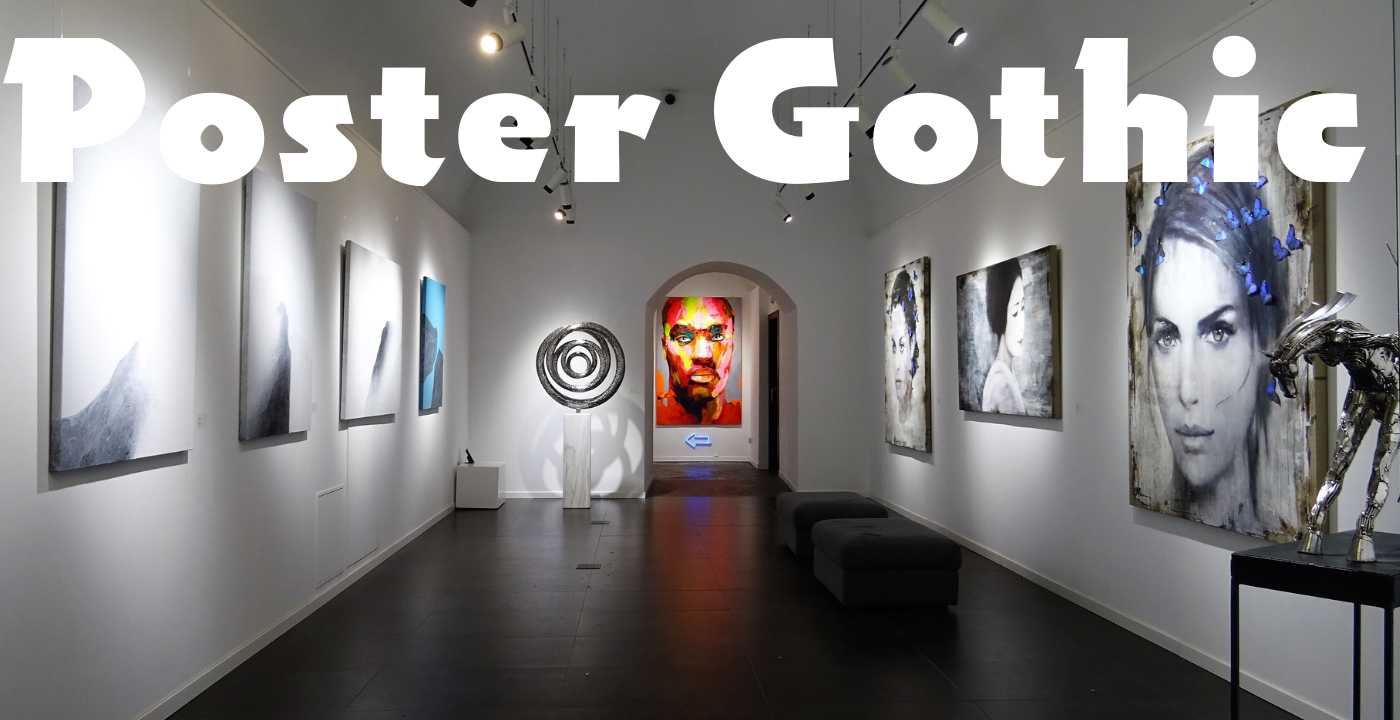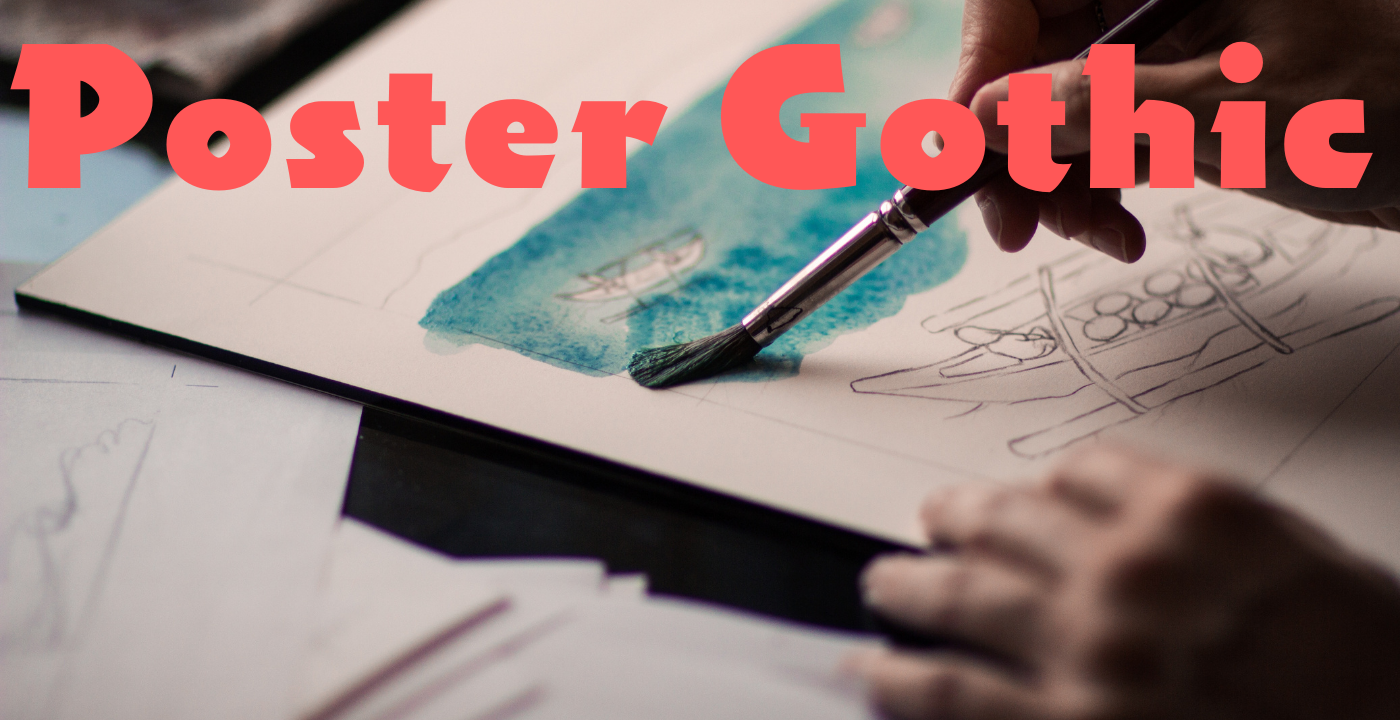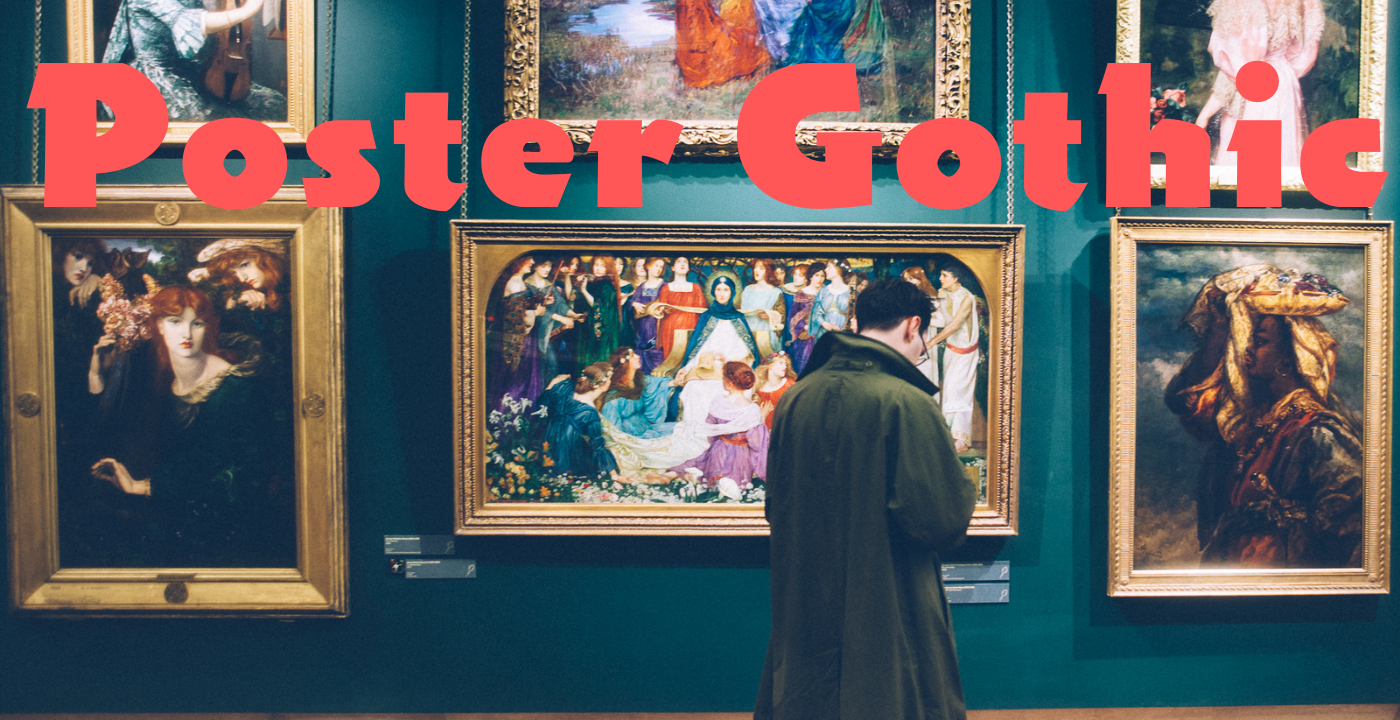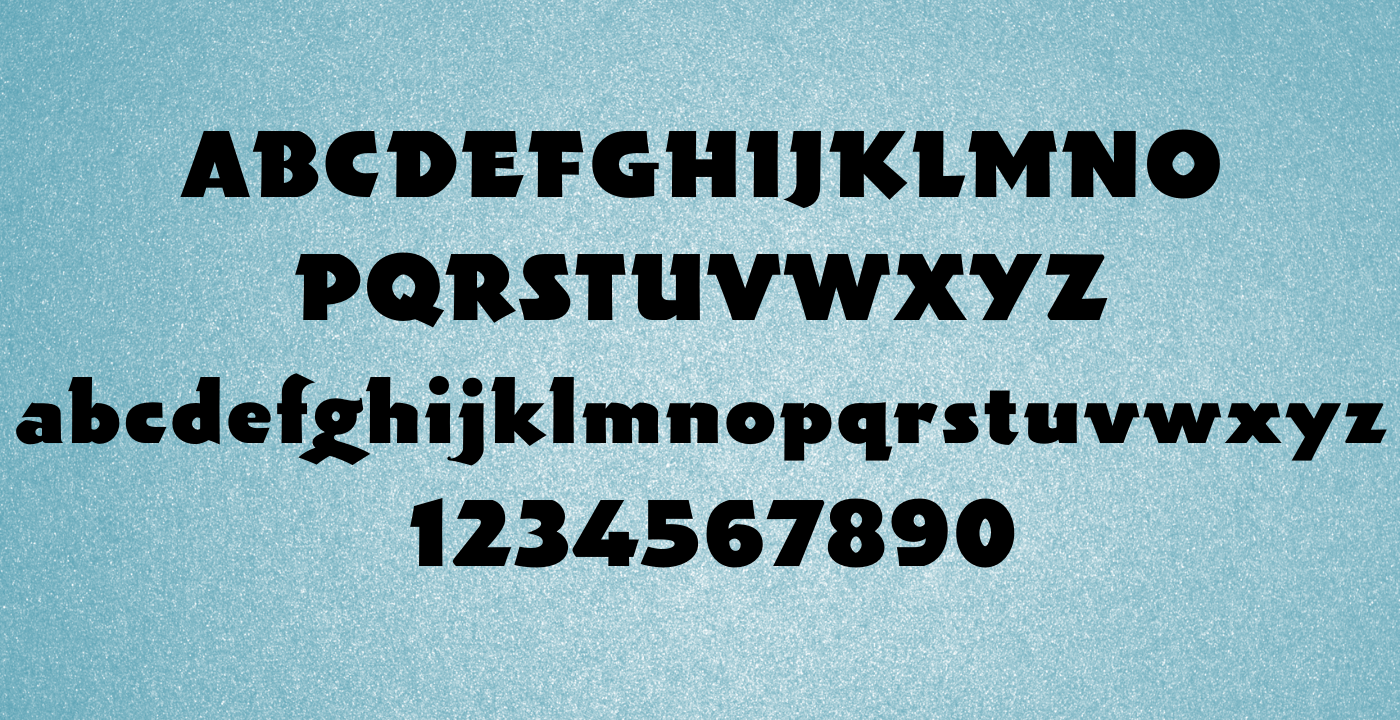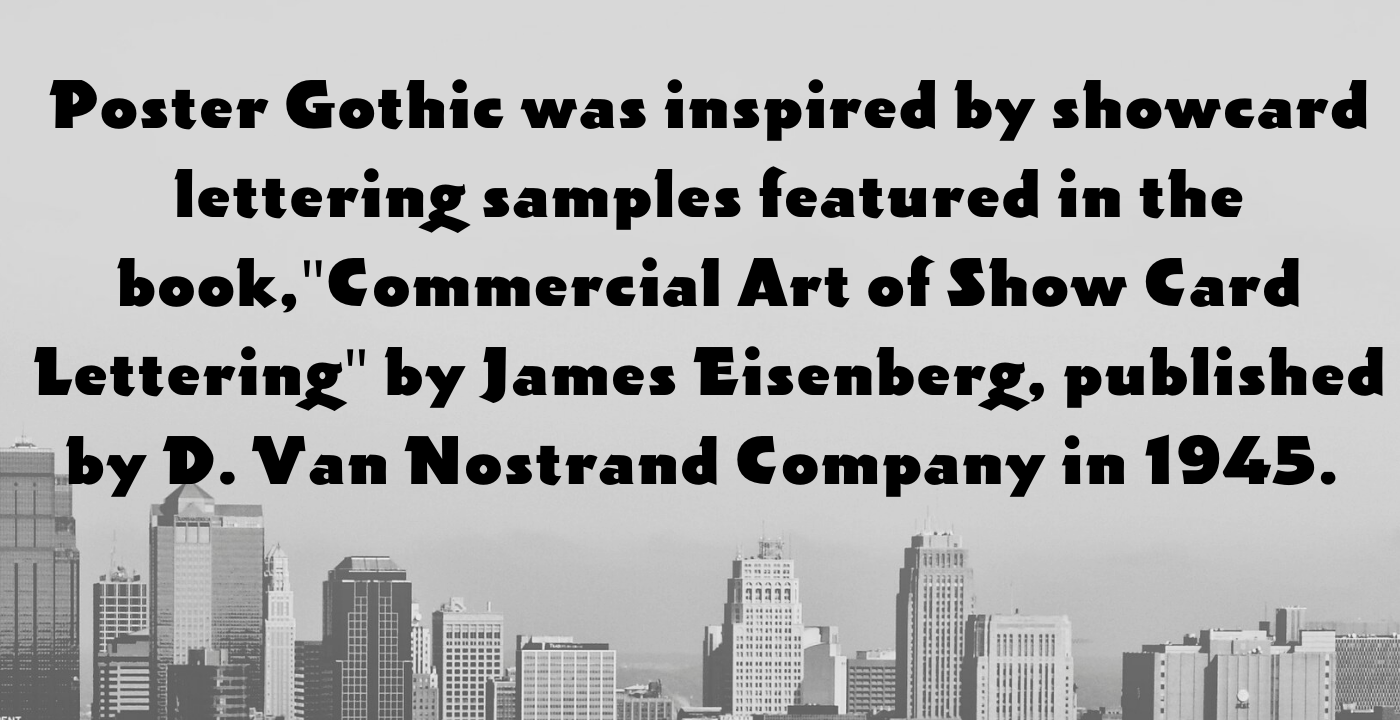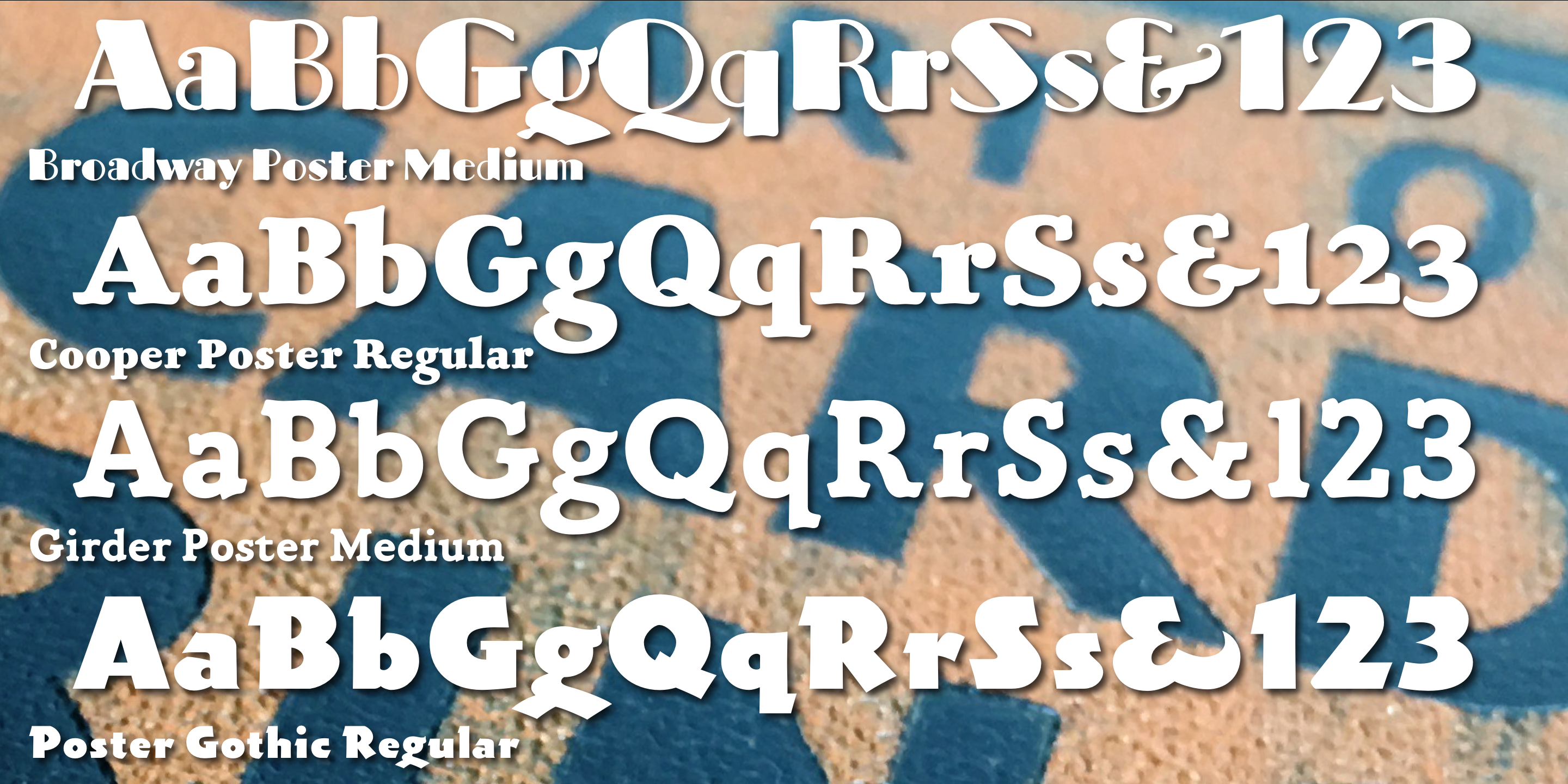
Poster Gothic was inspired by showcard lettering samples featured in the book,""Commercial Art of Show Card Lettering"" by James Eisenberg, published by D. Van Nostrand Company in 1945.